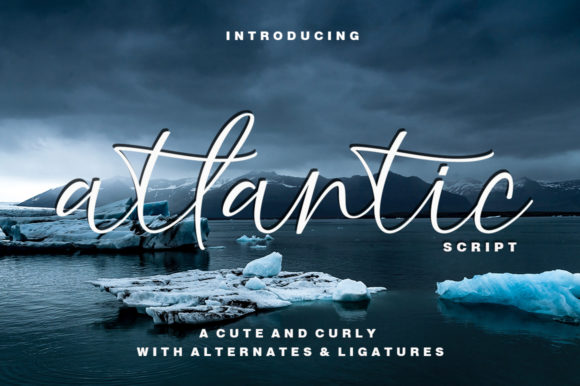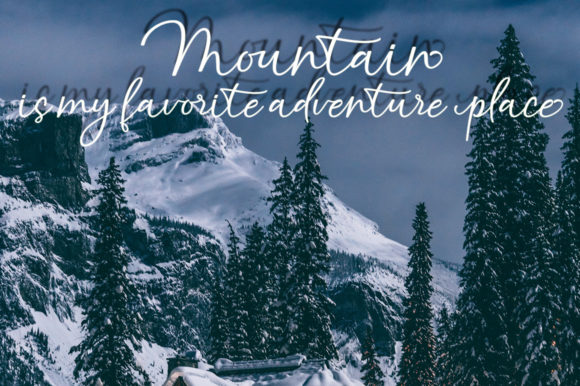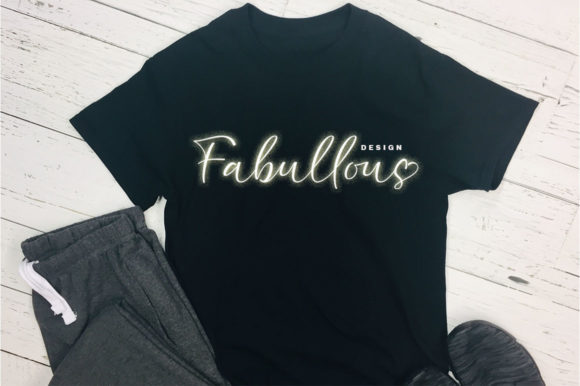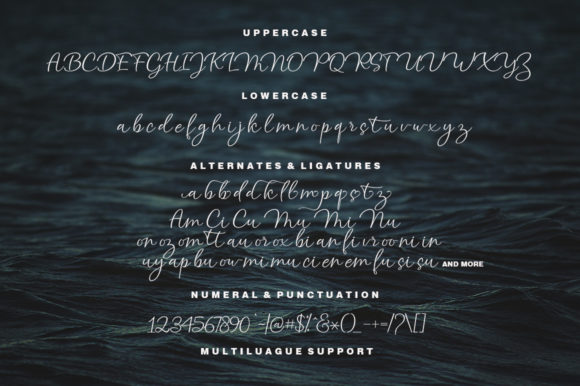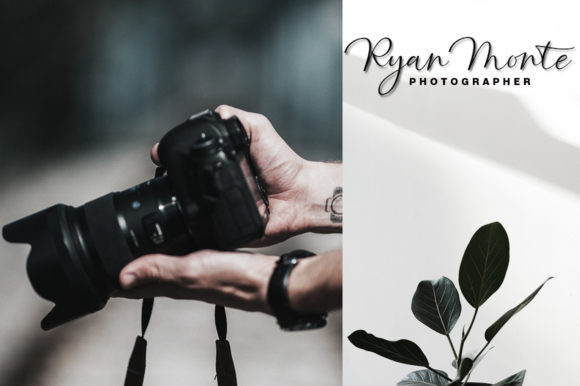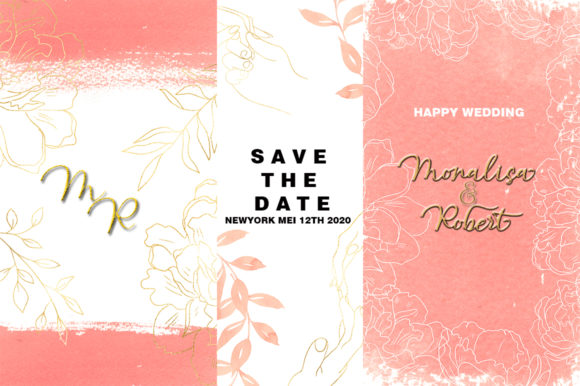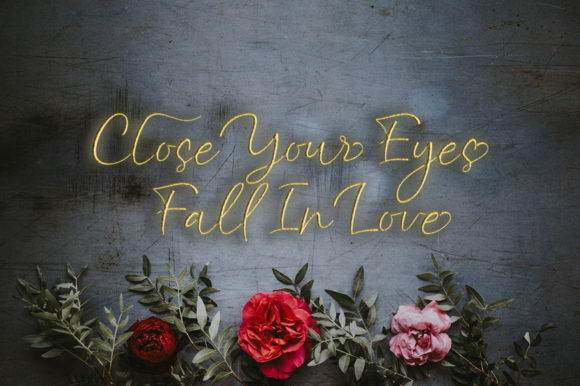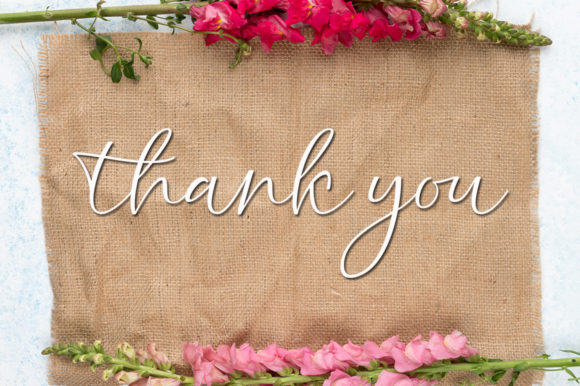
Atlantic Script Font
About Atlantic Script Font
The atlantic script is a beautiful legible script. It’s ideal for a wide range of projects and is a great way to add a vintage yet clean style to your work.